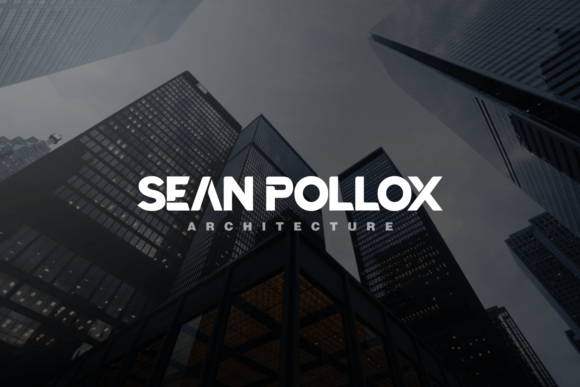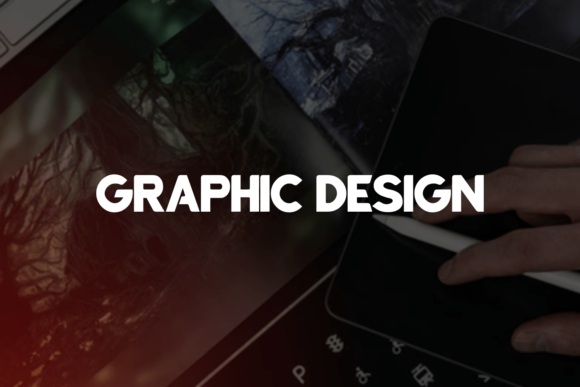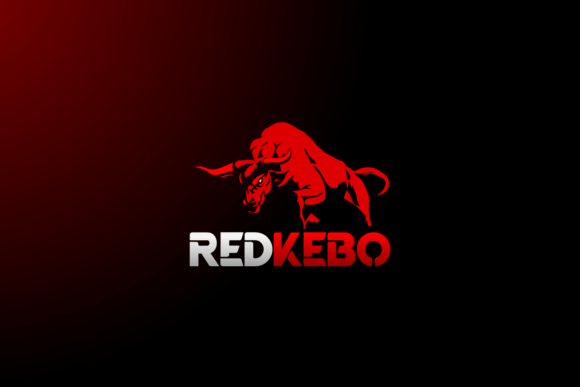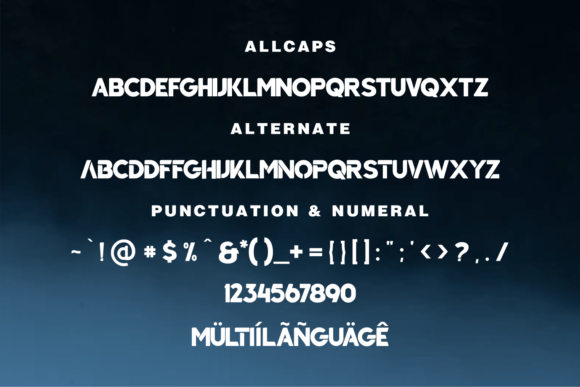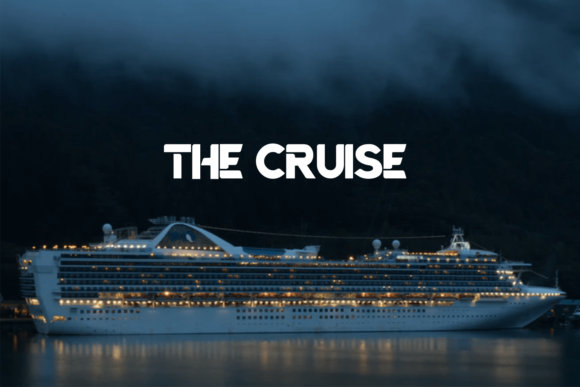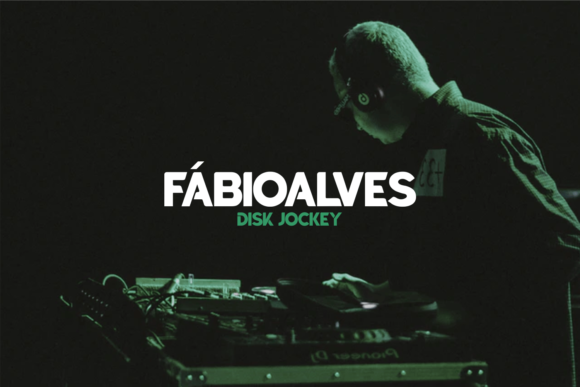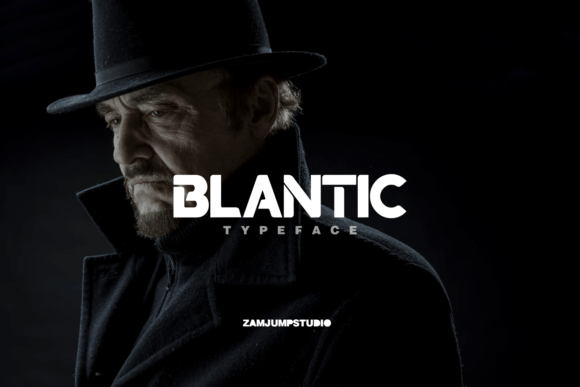
Introducing Blantic Font: Elevate Your Designs with Elegance and Boldness
Are you on the hunt for a font that exudes elegance and boldness, perfect for making a statement in your designs? Look no further than Blantic Font, a stunning display font that is sure to capture hearts with its incredibly versatile style. Whether you’re a designer, crafter, or simply a creative enthusiast, Blantic Font is an excellent addition to your typography arsenal.
What Makes Blantic Font So Special?
Blantic Font is an elegant and bold display font that is designed to make your designs stand out. Its versatility knows no bounds, making it suitable for a wide range of applications, from gorgeous wedding invitations and beautiful stationery art to eye-catching social media posts and more. The font’s sophisticated style is sure to impress, adding a touch of luxury and refinement to any project.
One of the standout features of Blantic Font is its PUA (Private Use Area) encoding. This means that you can access all of the glyphs and swashes with ease, giving you complete creative control over your designs. With PUA encoding, you can effortlessly navigate the font’s extensive character set, including alternate letters, ligatures, and decorative swashes.
Blantic Font offers endless design possibilities, making it an excellent choice for a wide range of projects. Here are just a few ideas to get you started:
- Wedding Invitations: Create stunning wedding invitations that set the tone for a beautiful and elegant celebration.
- Stationery Art: Design gorgeous stationery art, including greeting cards, thank you cards, and more.
- Social Media Posts: Make your social media posts stand out with bold and eye-catching typography.
- Branding and Packaging: Use Blantic Font to create a cohesive brand identity, including logos, labels, and packaging.
Why Choose Blantic Font?
With so many fonts available, why choose Blantic Font? Here are just a few reasons why designers and crafters love this elegant and bold display font:
- Unique Style: Blantic Font boasts a unique and sophisticated style that is sure to make your designs stand out.
- Versatility: The font’s versatility makes it suitable for a wide range of applications, from wedding invitations to social media posts.
- Easy to Use: With PUA encoding, accessing the font’s glyphs and swashes is easy, making it simple to get creative with your designs.
- High-Quality: Blantic Font is a high-quality font that is designed to deliver exceptional results, even at large sizes.
Tips for Using Blantic Font
To get the most out of Blantic Font, here are a few tips to keep in mind:
- Experiment with Swashes: Don’t be afraid to get creative with the font’s swashes, using them to add a touch of elegance and sophistication to your designs.
- Mix and Match: Combine Blantic Font with other fonts to create a unique and eye-catching typography style.
- Pay Attention to Kerning: Make sure to adjust the kerning to ensure that your text looks balanced and visually appealing.
In conclusion, Blantic Font is an exceptional display font that is sure to elevate your designs with its elegant and bold style. With its PUA encoding, versatility, and high-quality design, it’s an excellent choice for designers and crafters looking to make a statement. Whether you’re creating wedding invitations, stationery art, social media posts, or more, Blantic Font is a fantastic addition to your typography collection.